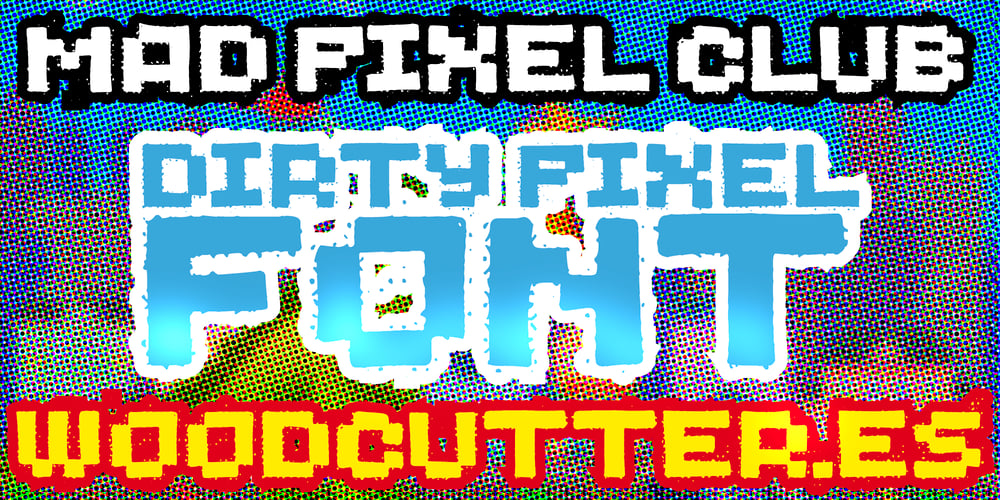
Mad Pixel Club Font Family was designed by Jordi Manero and published by Woodcutter. Mad Pixel Club contains 1 styles and family package options. “Mad Pixel Club” is a pixel-style font that captures the essence of retro digital art. With imperfect letters and a slightly dirty look, this typeface evokes the feel of early video games and computer graphics. Its irregular and worn-out shapes add a unique and nostalgic character, perfect for projects seeking a vintage and authentic style. “Mad Pixel Club” is ideal for titles, posters, and creative designs that aim to stand out with a touch of digital nostalgia and a rebellious, original flair.